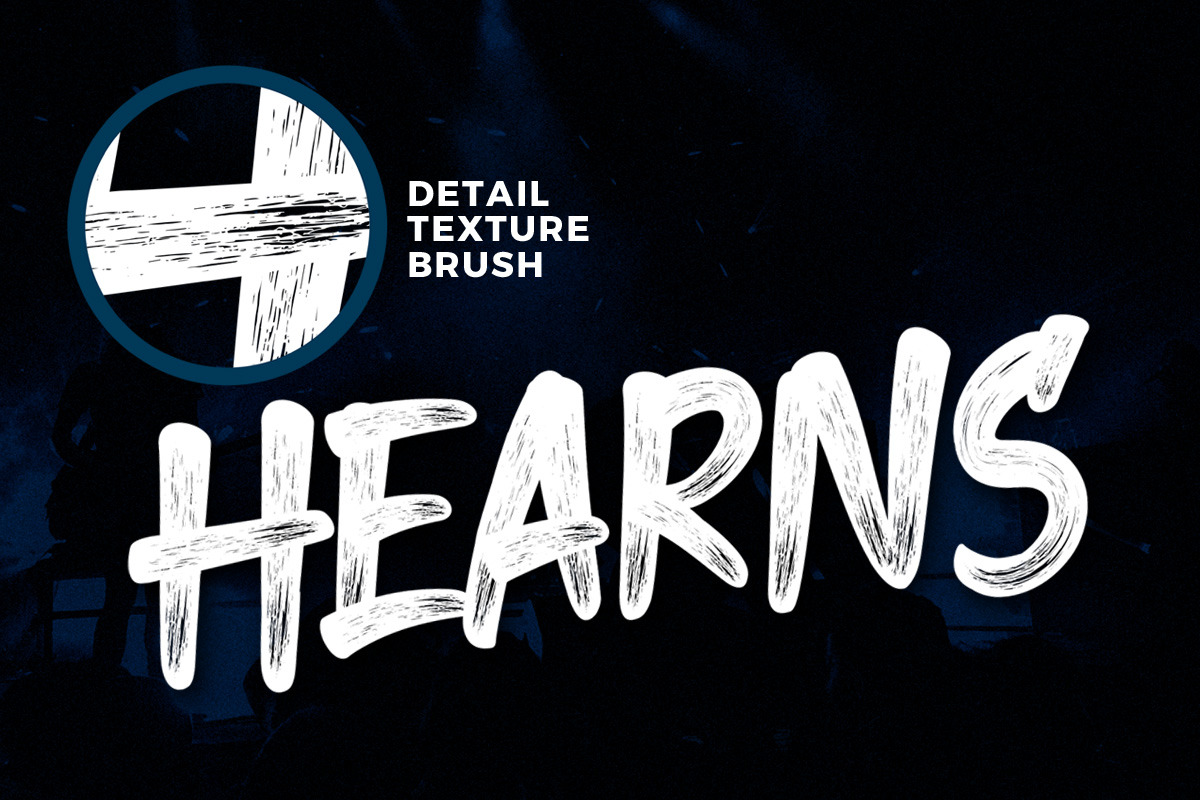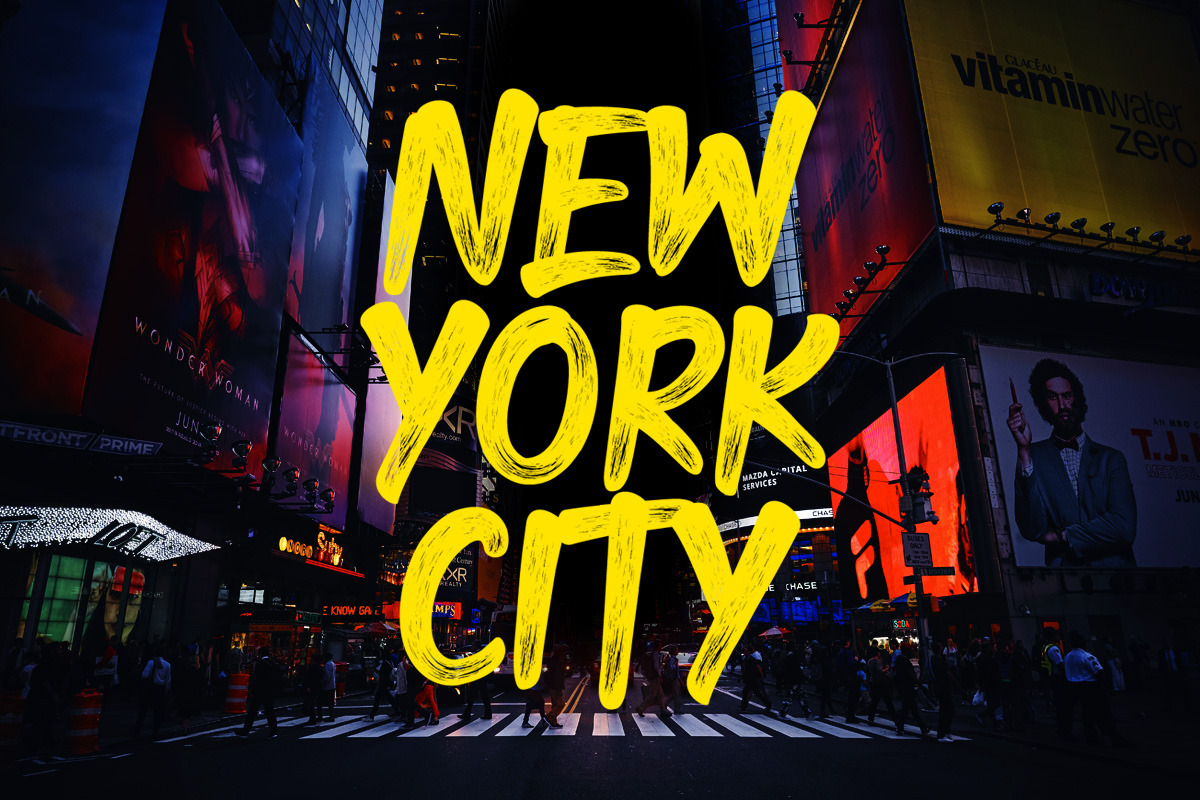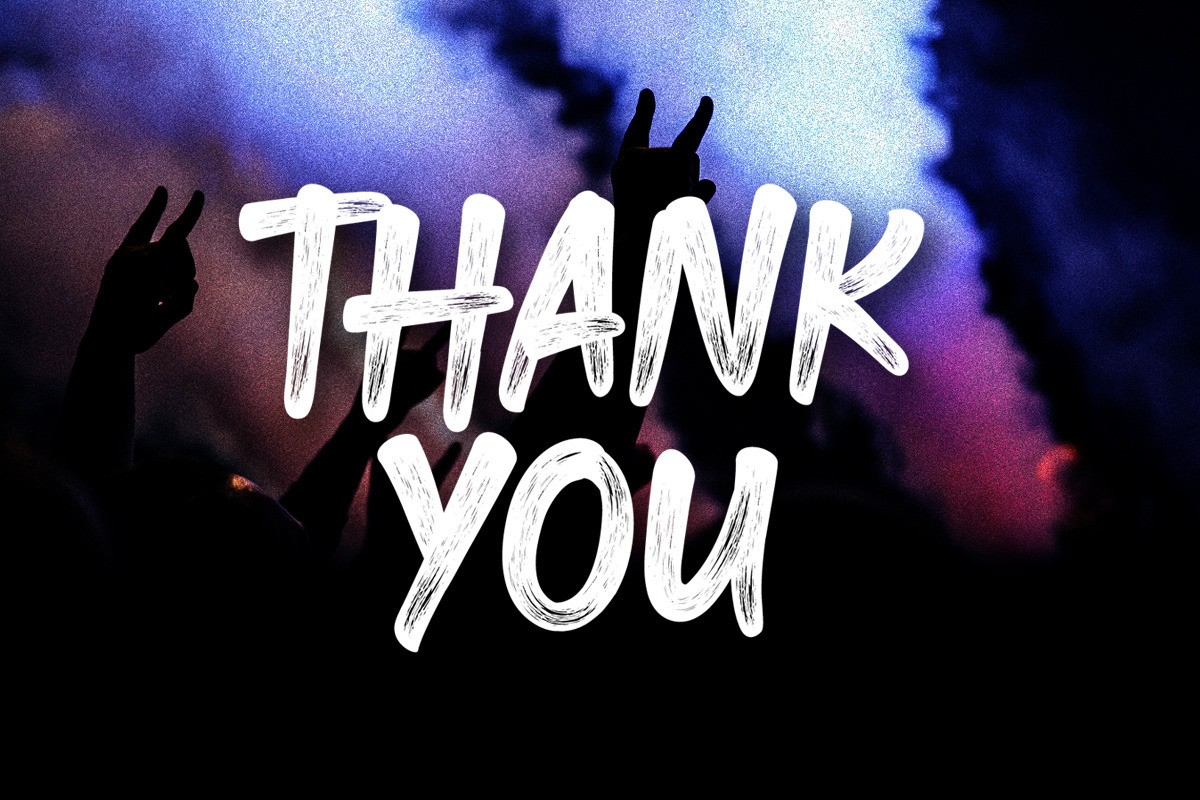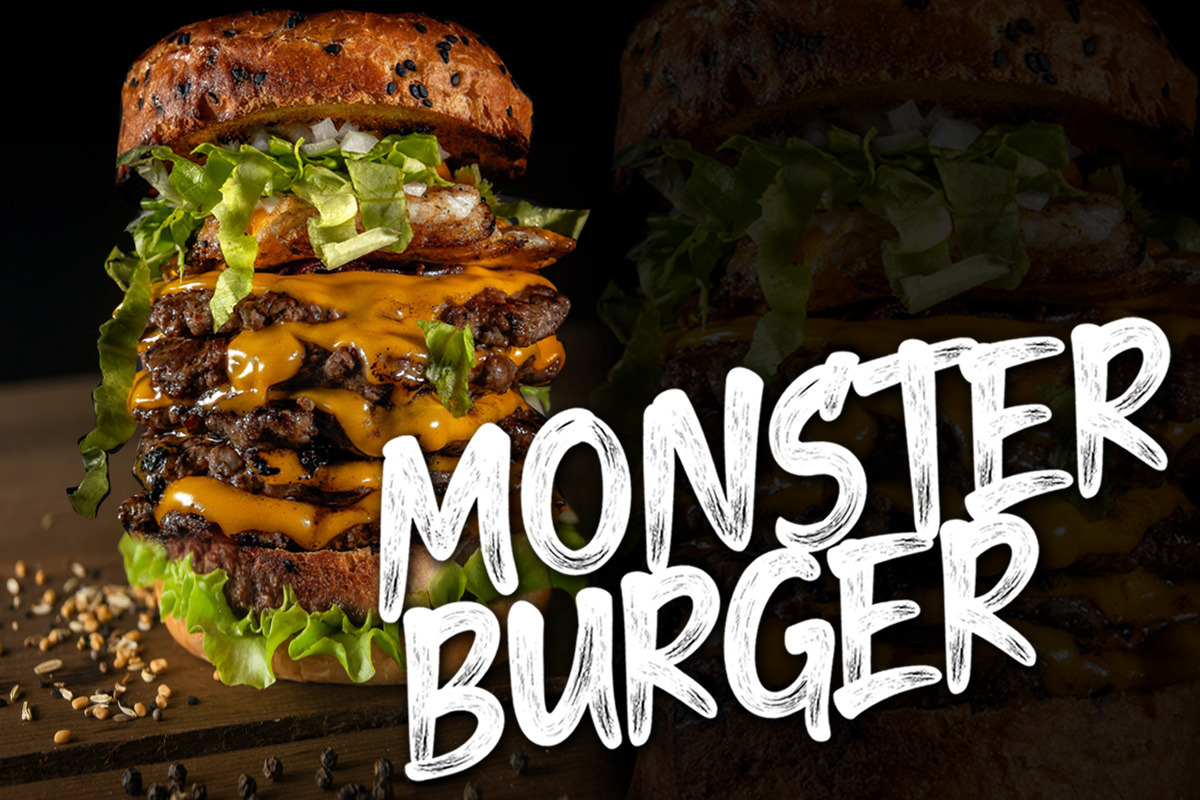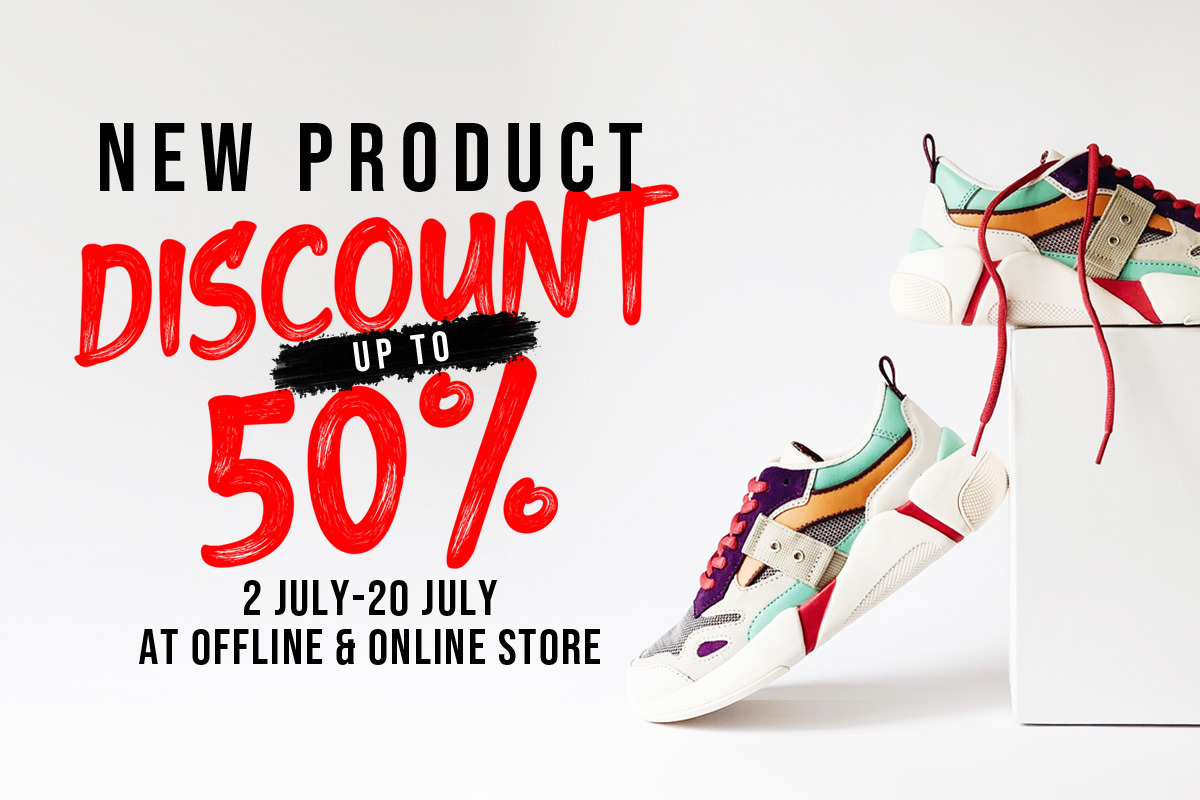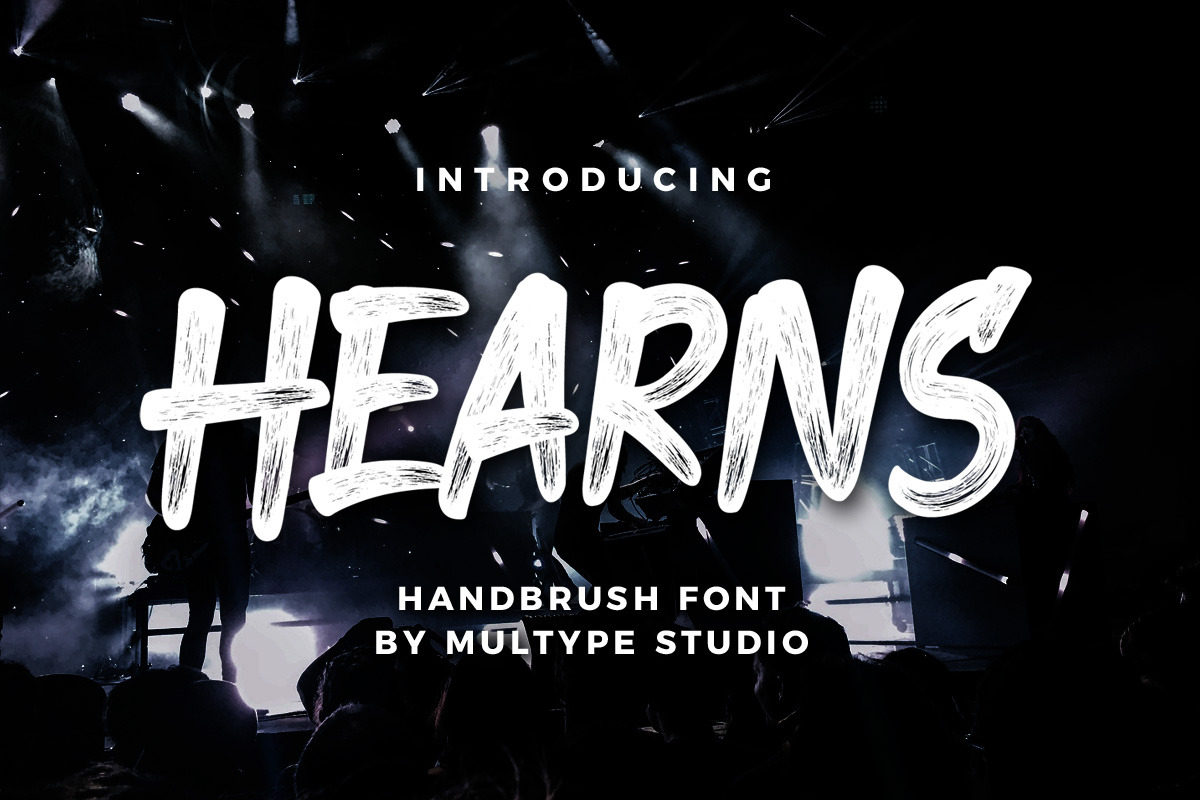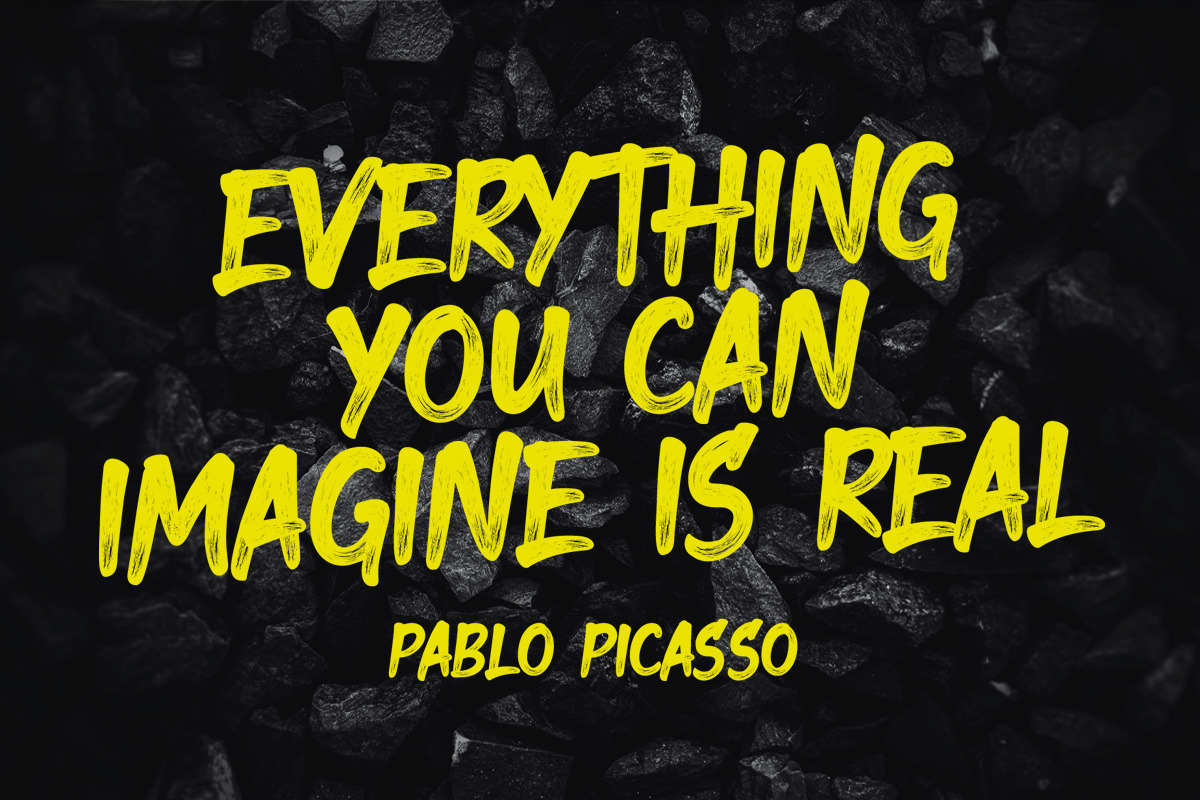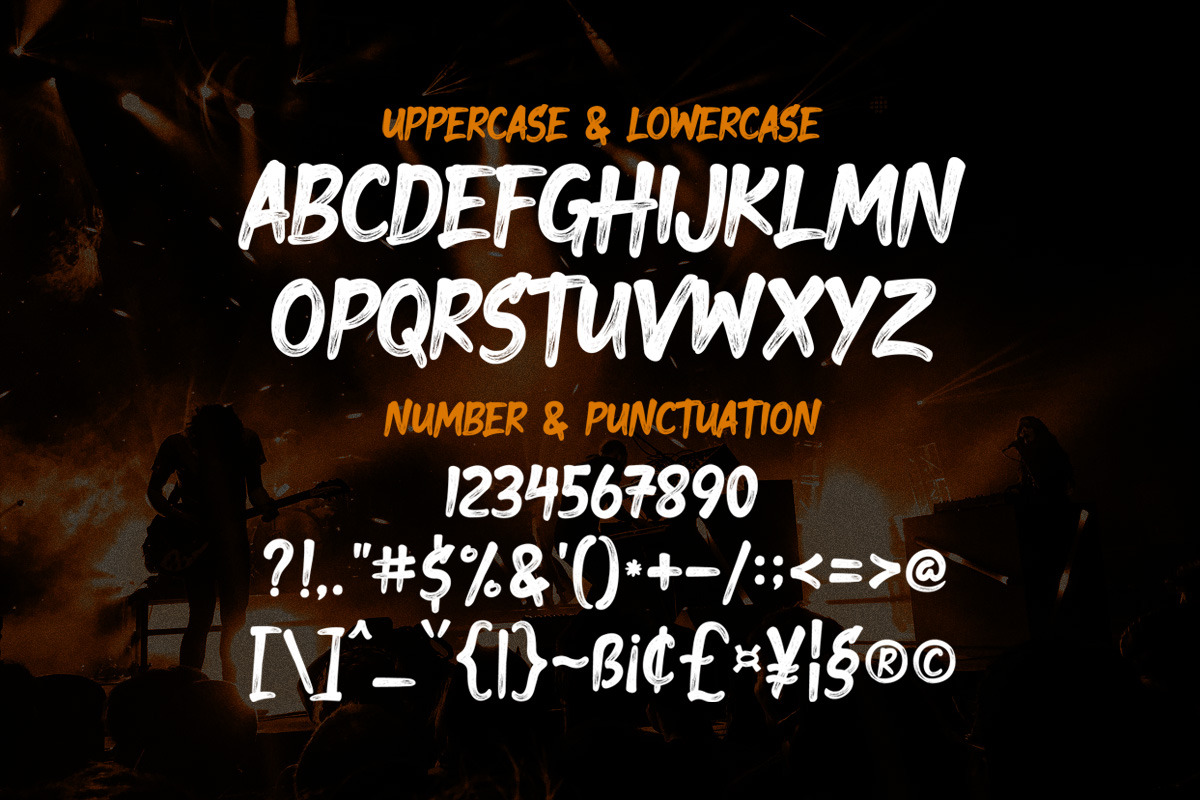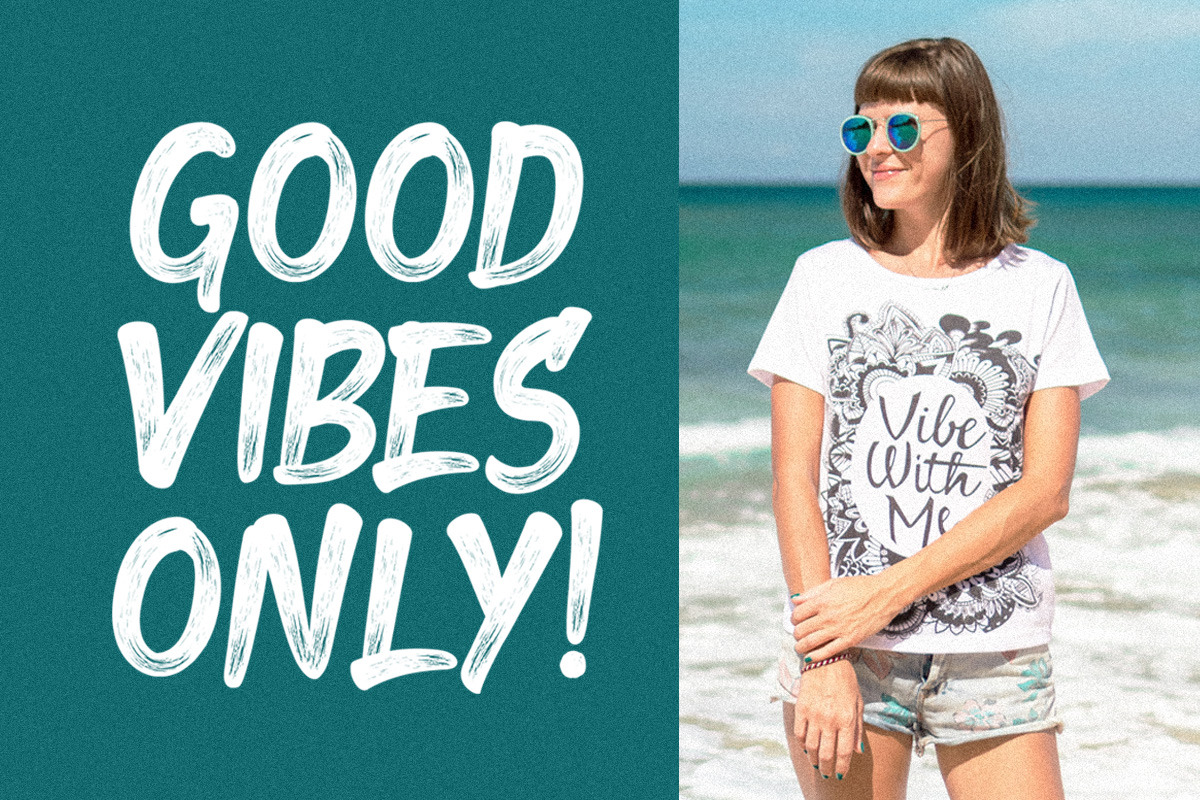
Hearns Handbrush Font
Hearns is a handbrush font with authentic textures. This font would perfect for logos, branding, product designs, product packaging, photography, watermark, social media posts, advertisements, invitation, stationery, labels, logos, magazines, books, greeting / wedding cards, fashion, make up, and etc.
- Standard Gliphs
- Numbers & Symbols